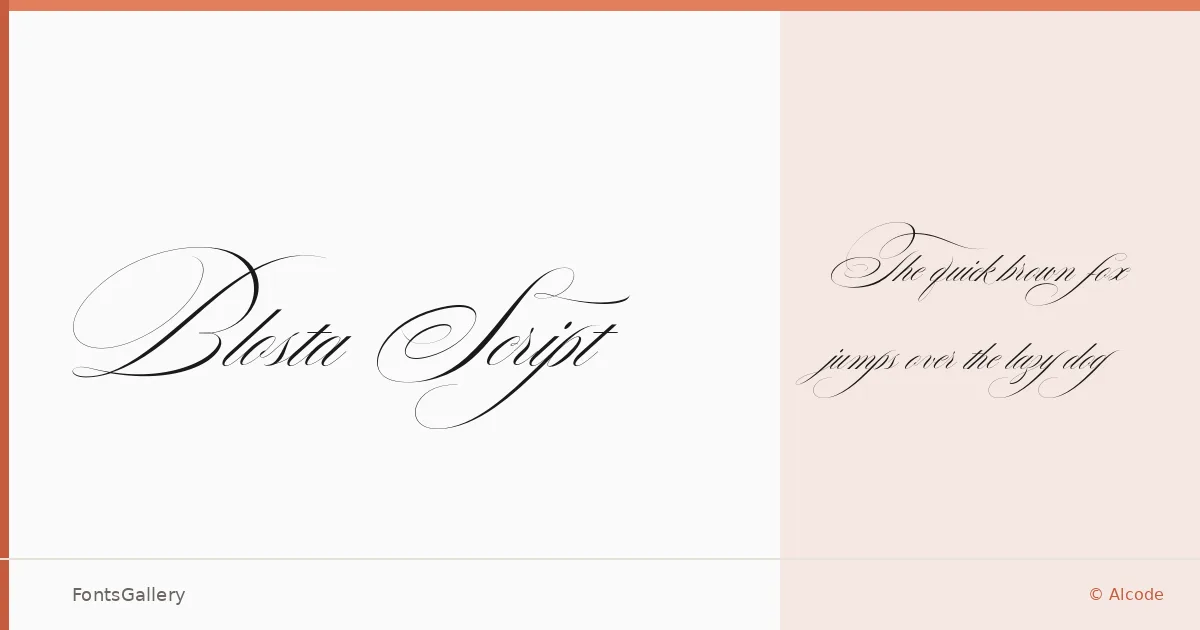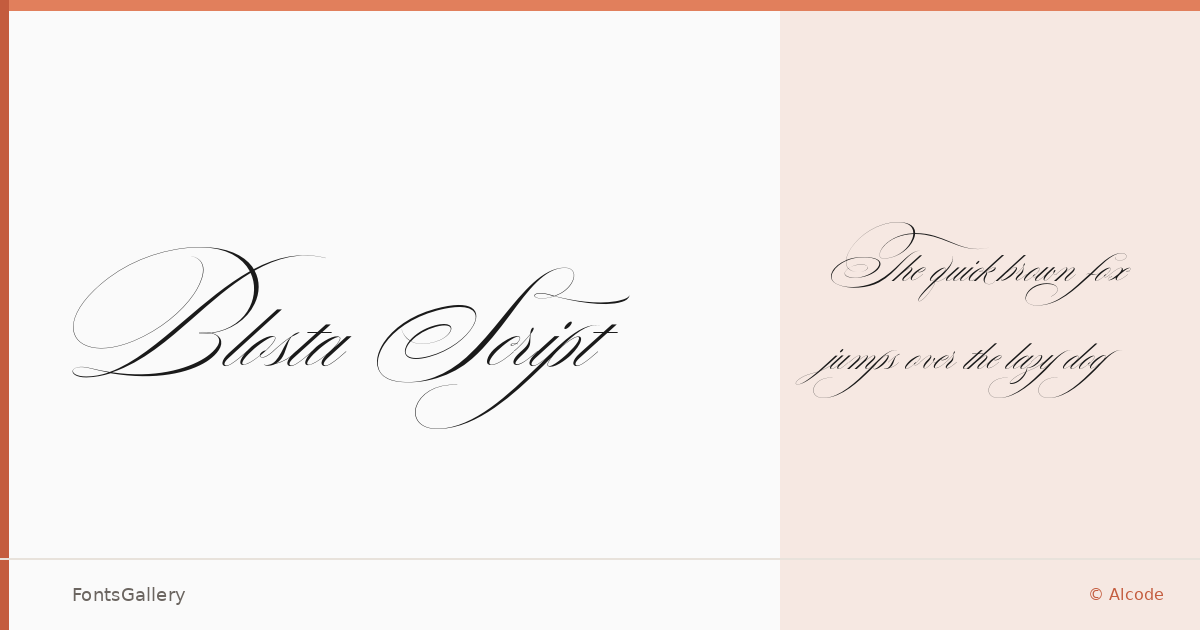
About Blosta Script Font
There is a deliberate unhurriedness to the strokes here — the kind of calligraphic flow that feels hand-drawn rather than mechanically constructed. Blosta Script was designed by Sukjana Almunandar for the Alcode foundry, and it arrives as a single Regular cut in OTF format. The letterforms carry the weight and sweep of classic pointed-pen work, with connections that feel considered rather than automatic.
This is a script face built around elegance and romantic restraint — not flashy, but genuinely luxurious in the way a well-pressed envelope looks before it is opened. The Latin character set leans into classic proportions, making every word feel like it was signed rather than set. As a single Regular style, it works best when the letterforms themselves carry the composition rather than weight contrast doing the work for you.
The face is at home on wedding stationery, invitation cards, certificates, and greeting cards where the occasion demands a certain ceremony. It also holds up well as a logo script for brands positioned around luxury or romance. For contrast, it pairs naturally with clean neutrals like Helvetica or Aileron, and finds complementary company among the more structured letterforms of Aranea, Aresink, and Bizantheum.